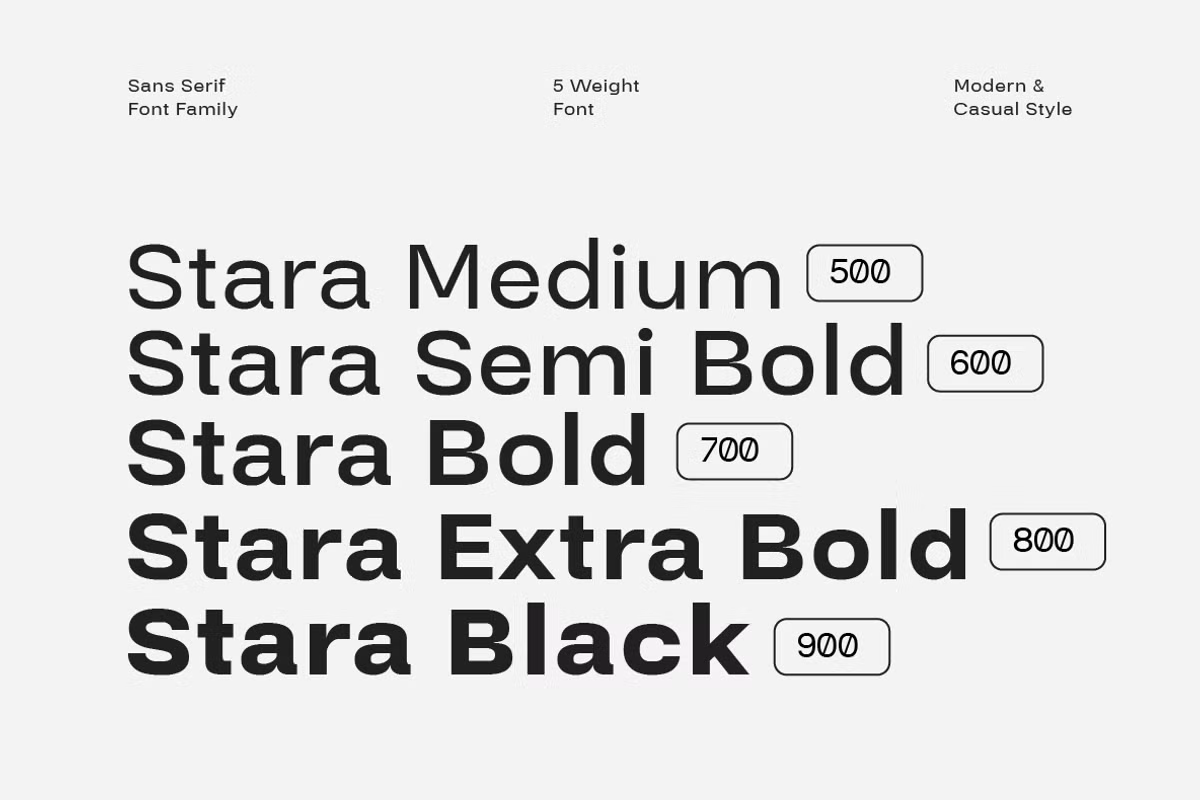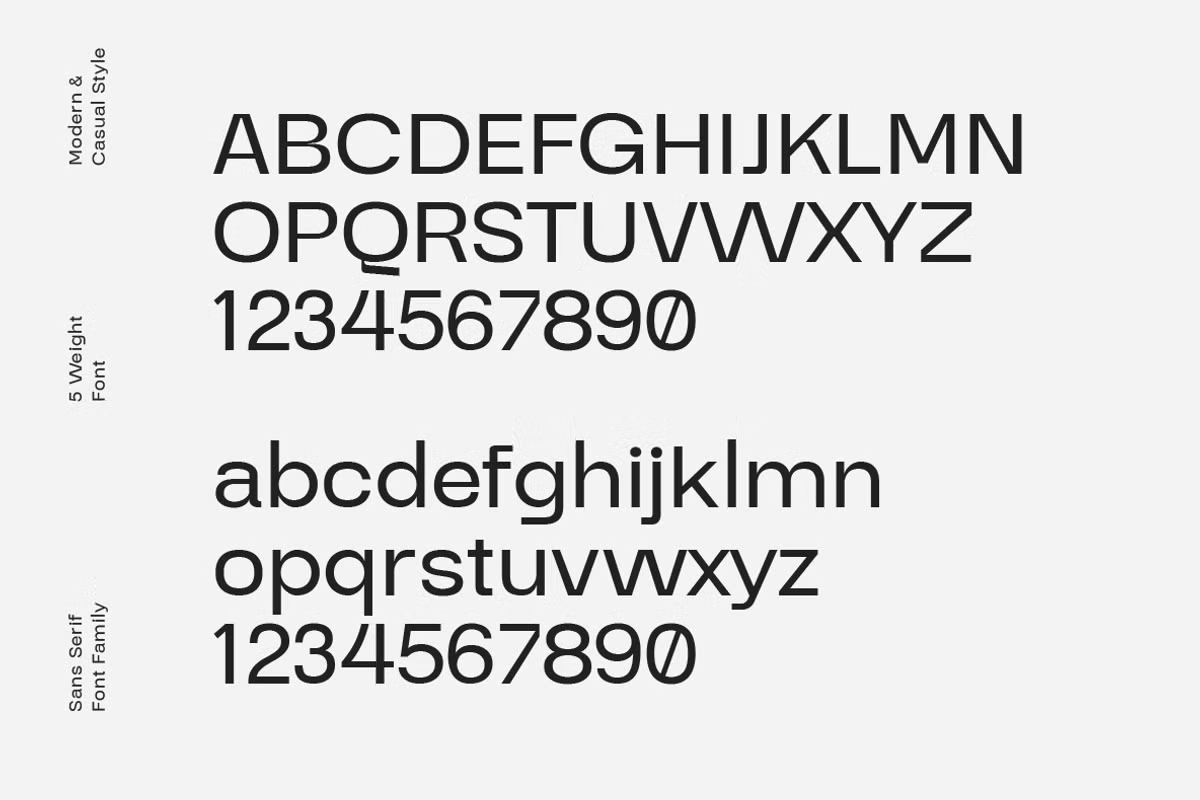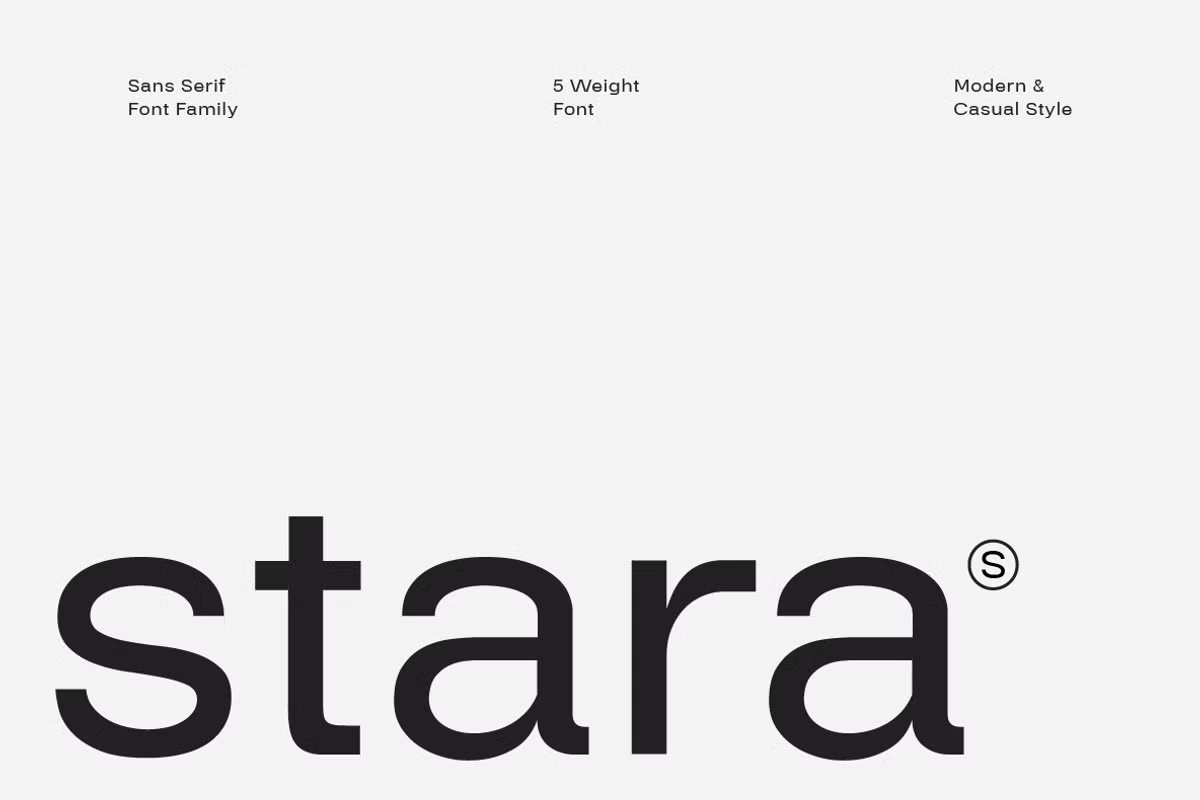
Stara Font
Stara font type is based on a sans-serif and is best suited to lay out and design providing simplicity but with elegance good for any modern working space and setting. Its lo fat design and with measured proportions it gives it the look and feel of a professional modern type that has been given meticulous planning to properly design every single letter that would ensure the best reading experience.
Stara Sans Serif Font